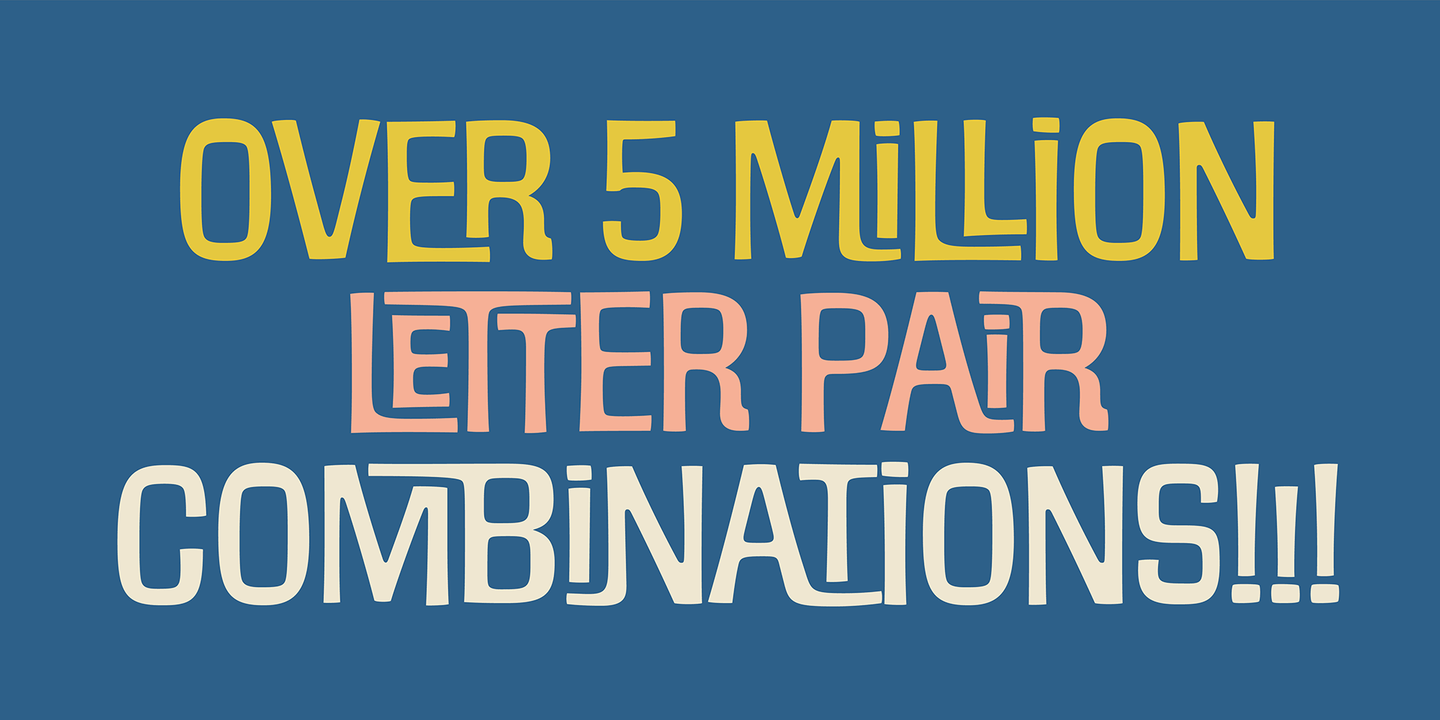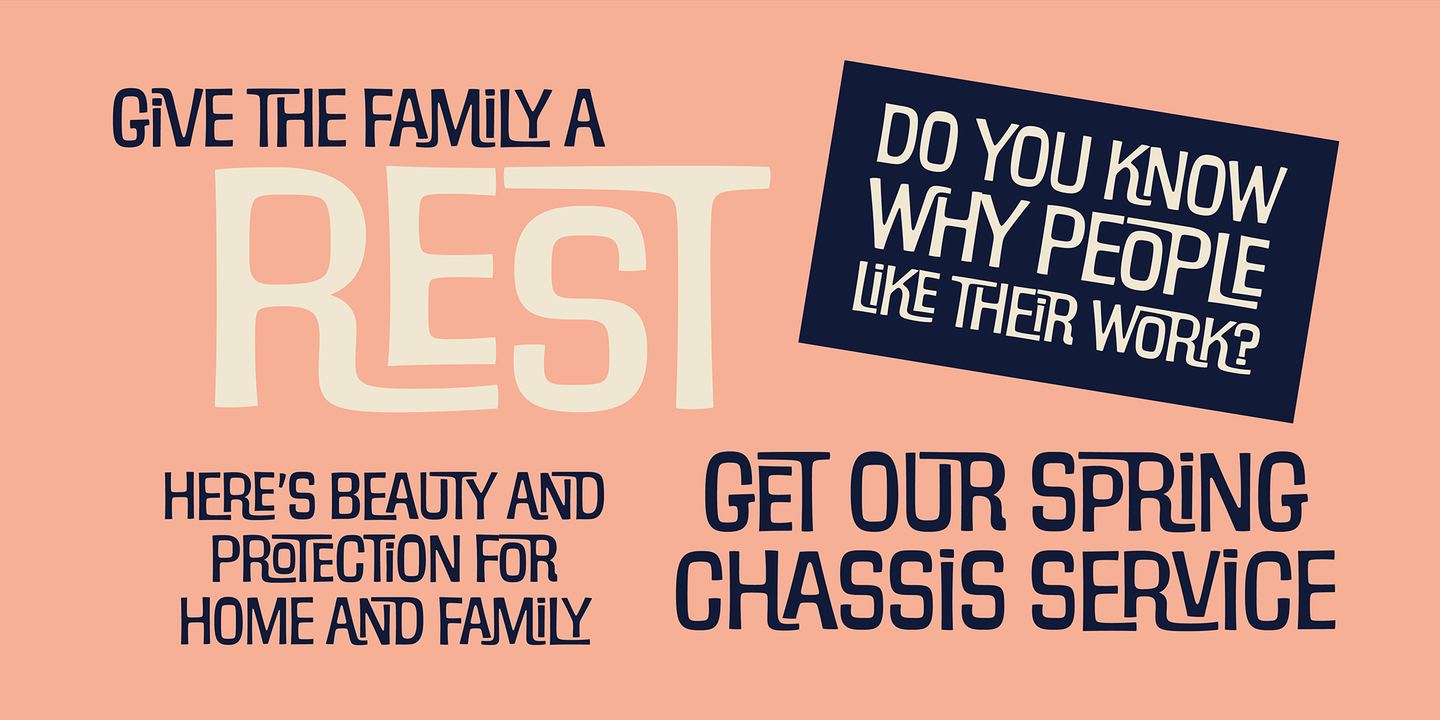
It's Filmotype Maxwell! a bouncy interlocking serif originally released as a Free Style typeface by Filmotype in the early 1960s that captures the essence of the mod design movement. This amazing font has over 5 million automatic interlocking letter…